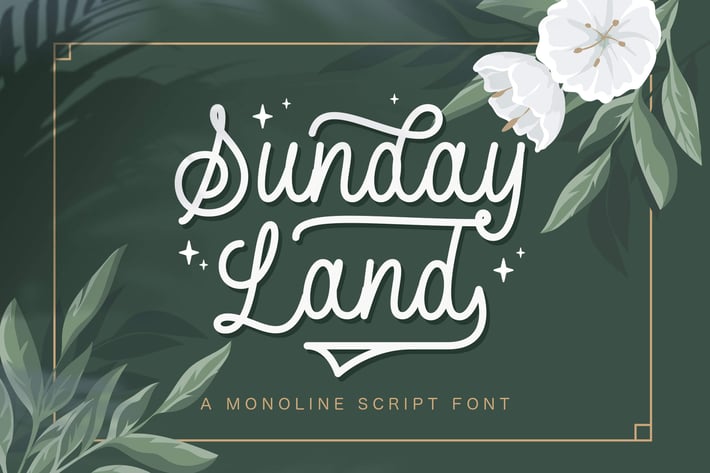
Sunday Land - Monoline Script Font
Introducing Sunday Land - Monoline Script Font
Sunday Land is a flowing monoline script handwritten font with retro vintage style, described by an elegant touch, perfect for your favorite projects. Fall in love with its incredibly distinct and timeless style and use it to create spectacular designs!